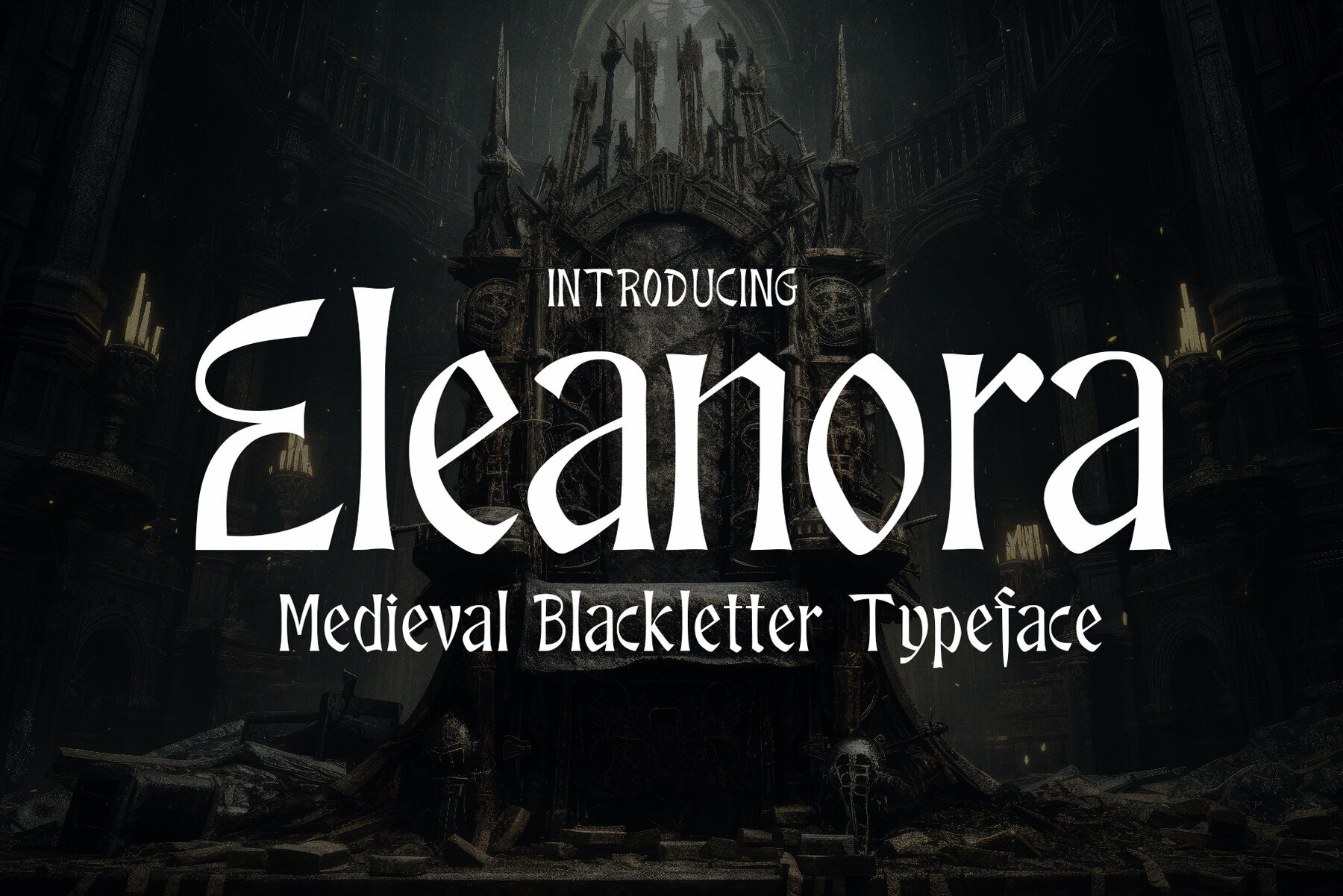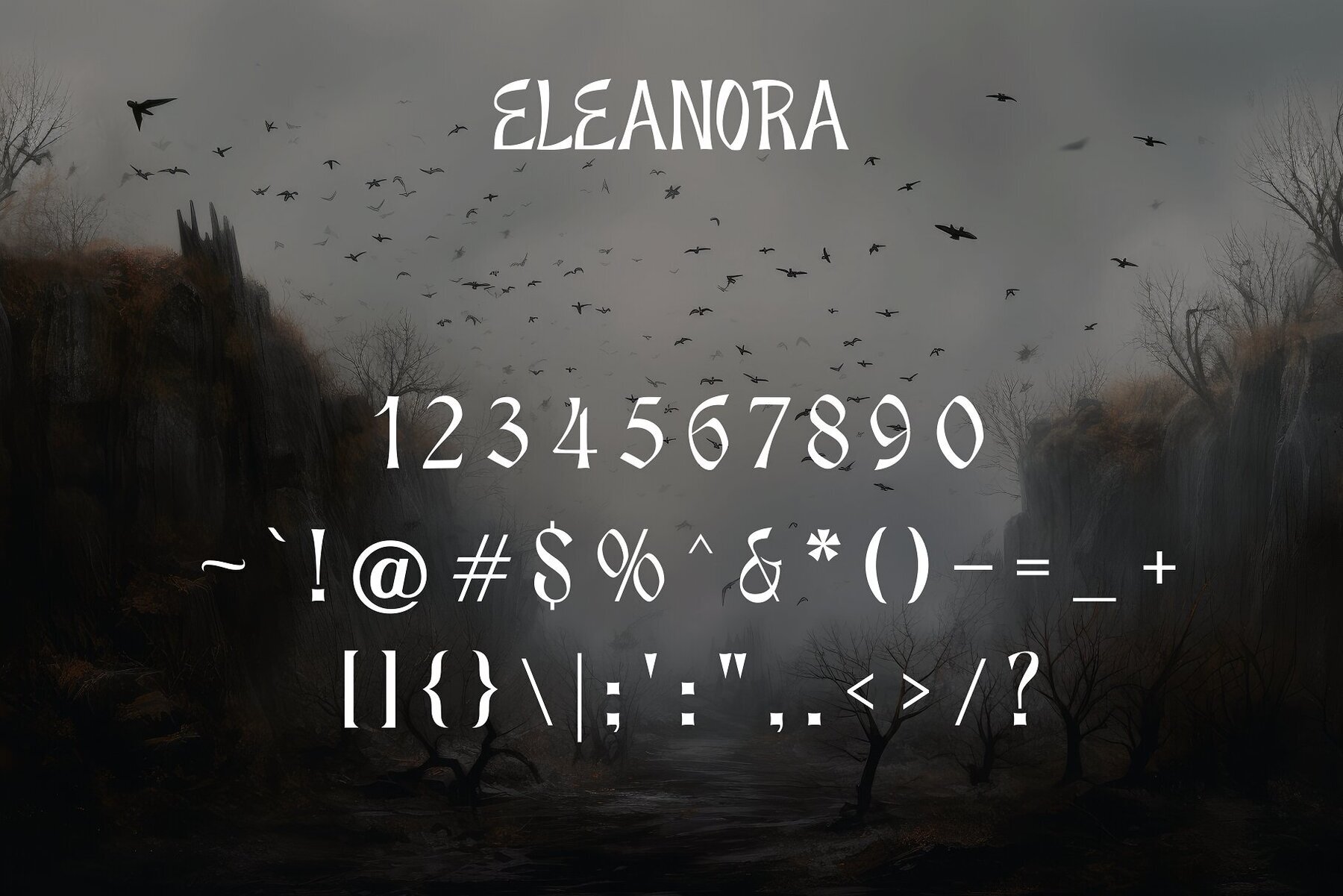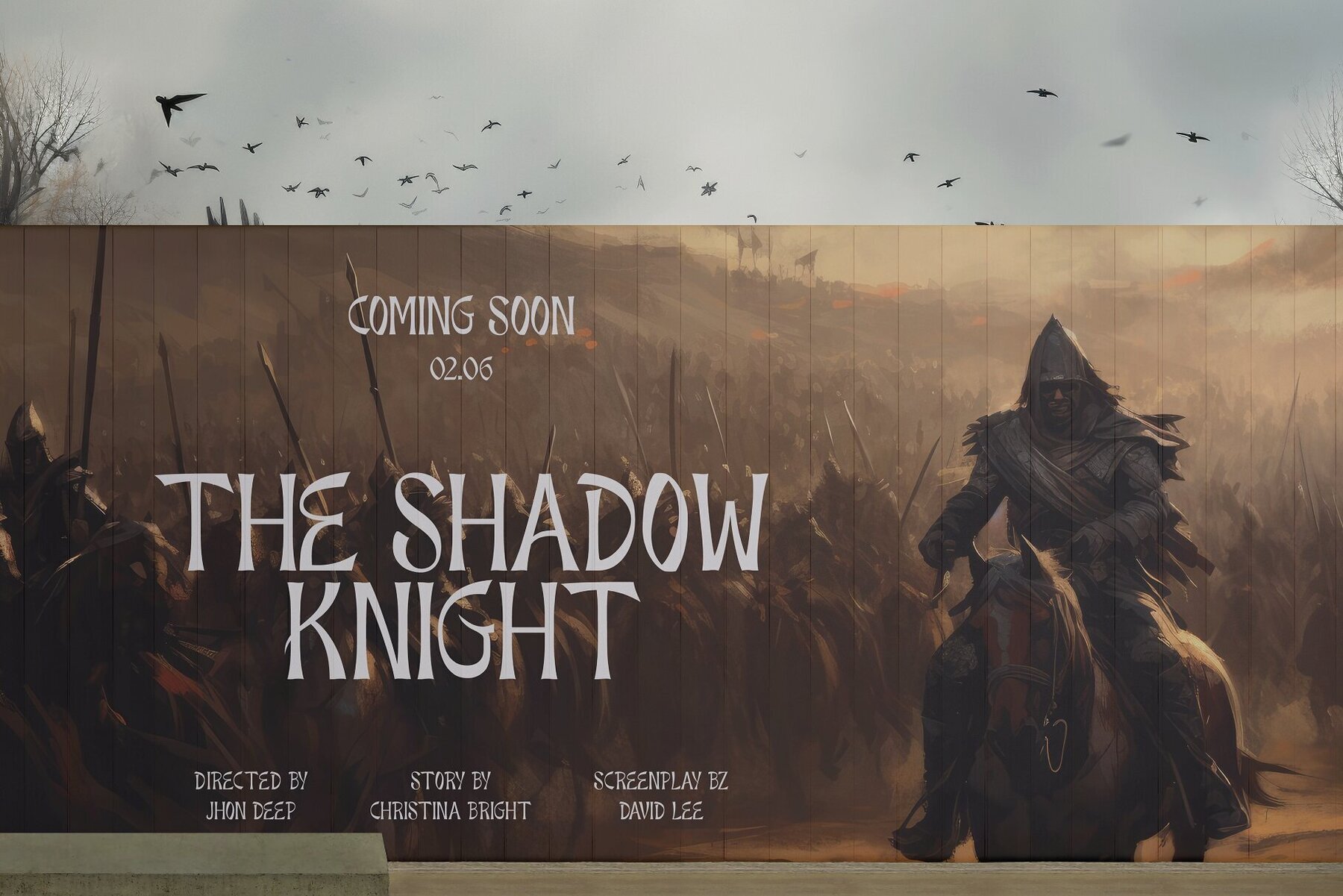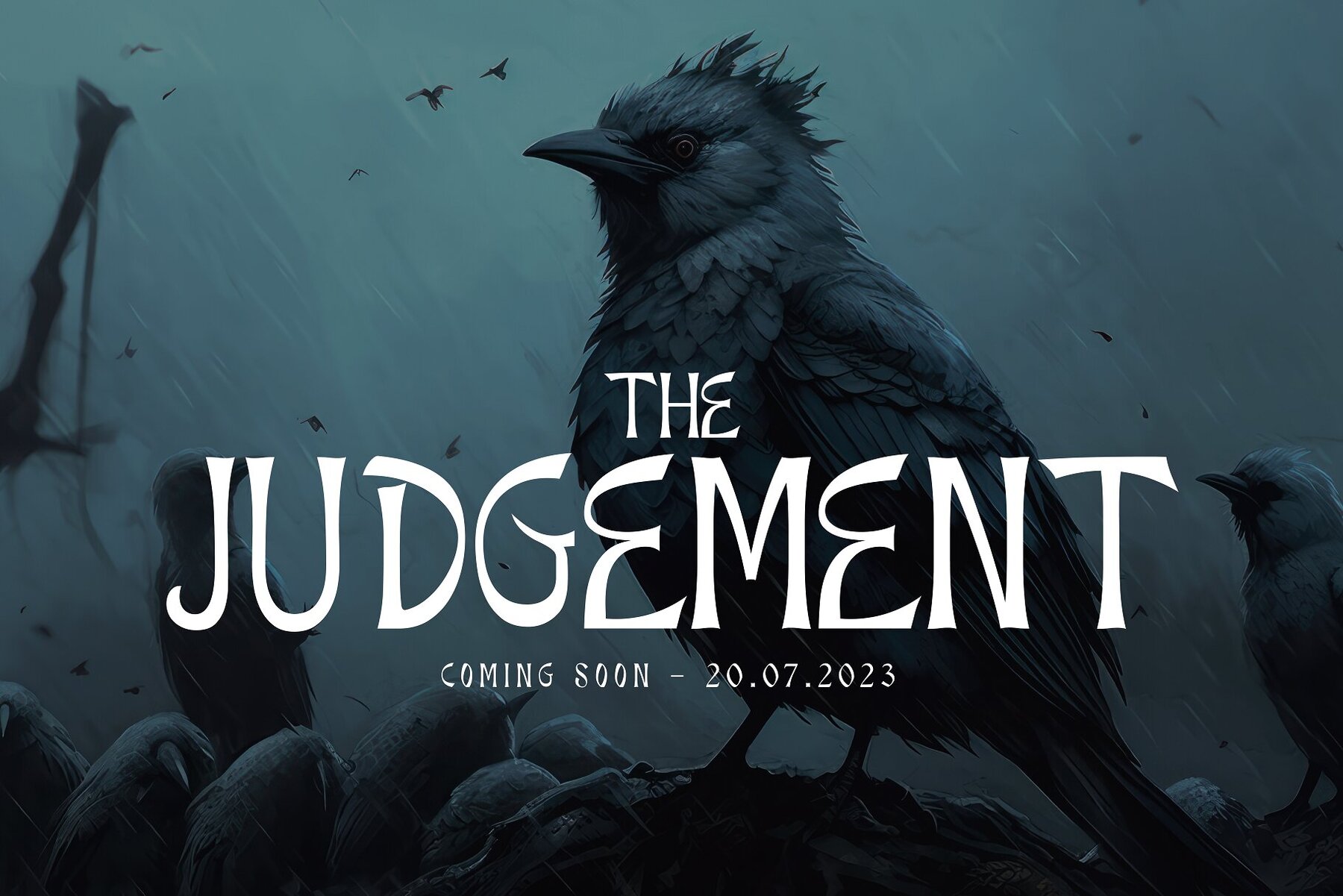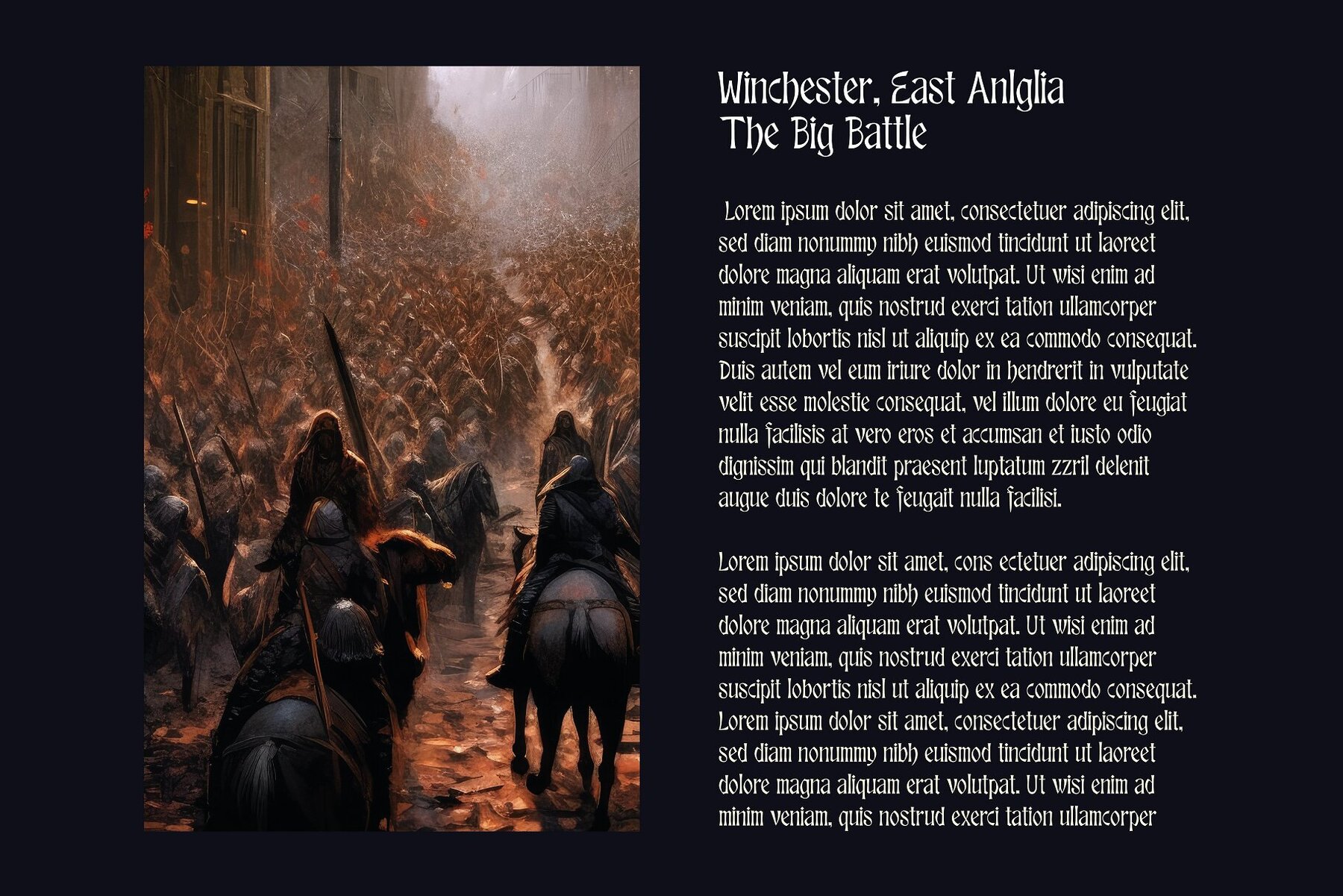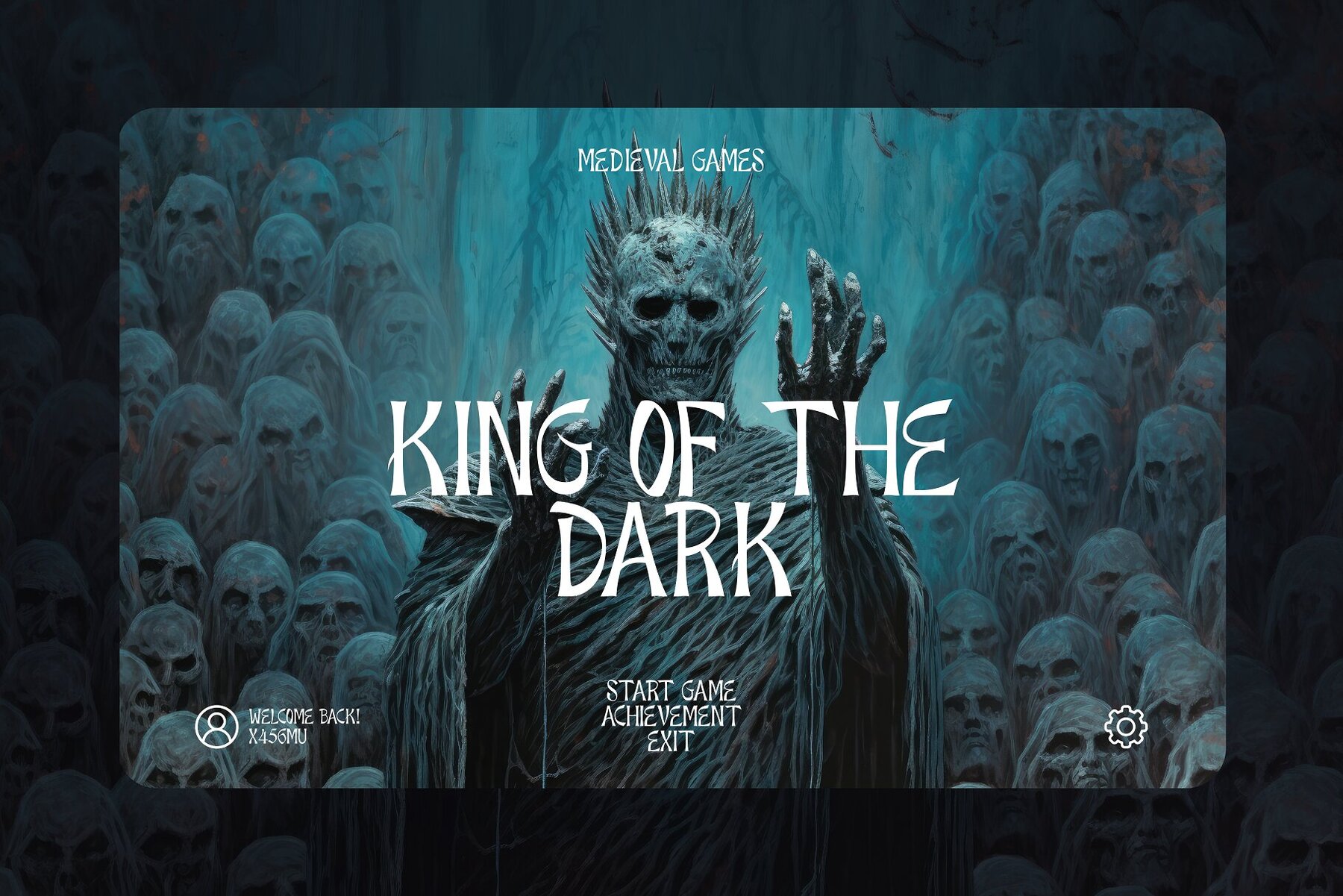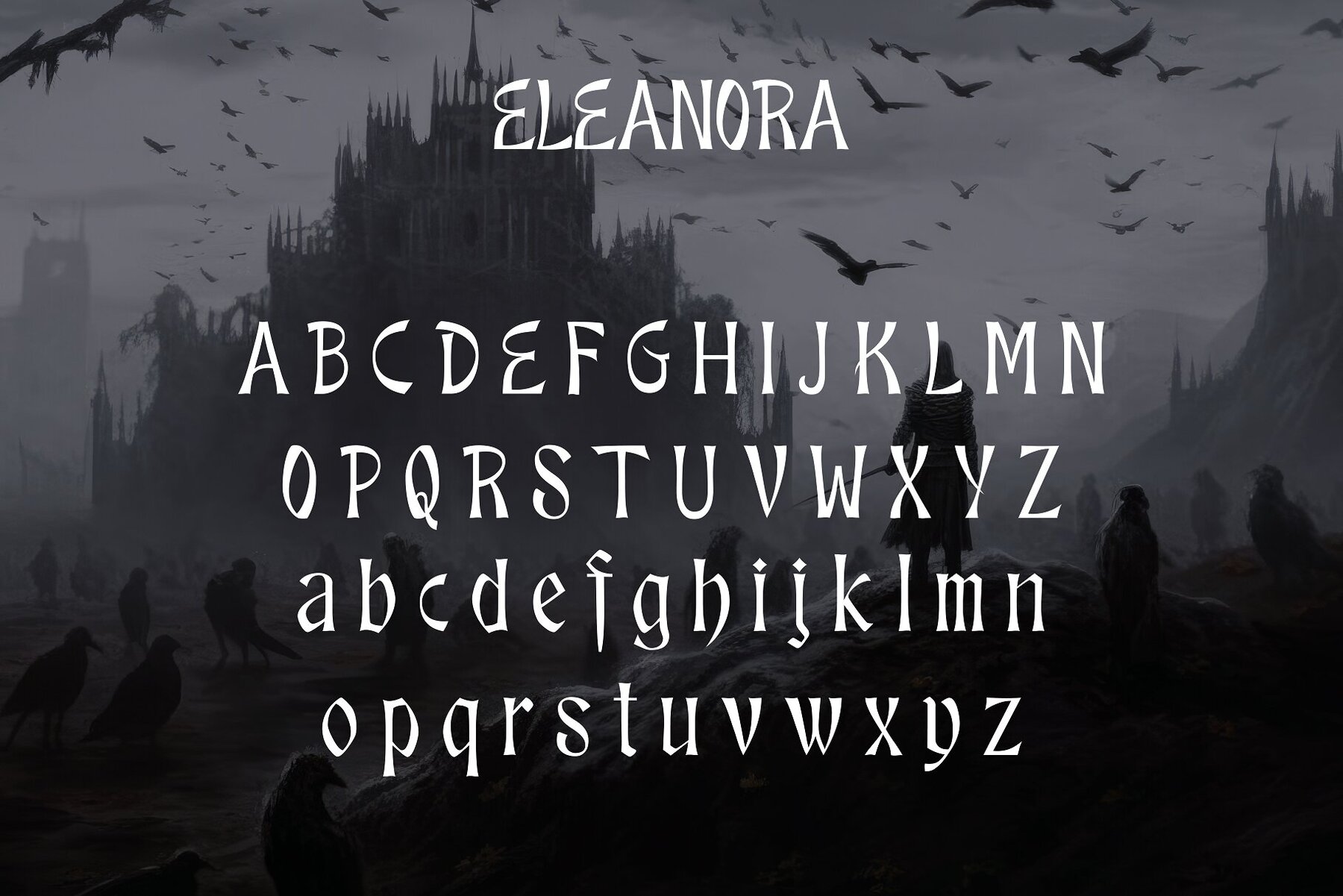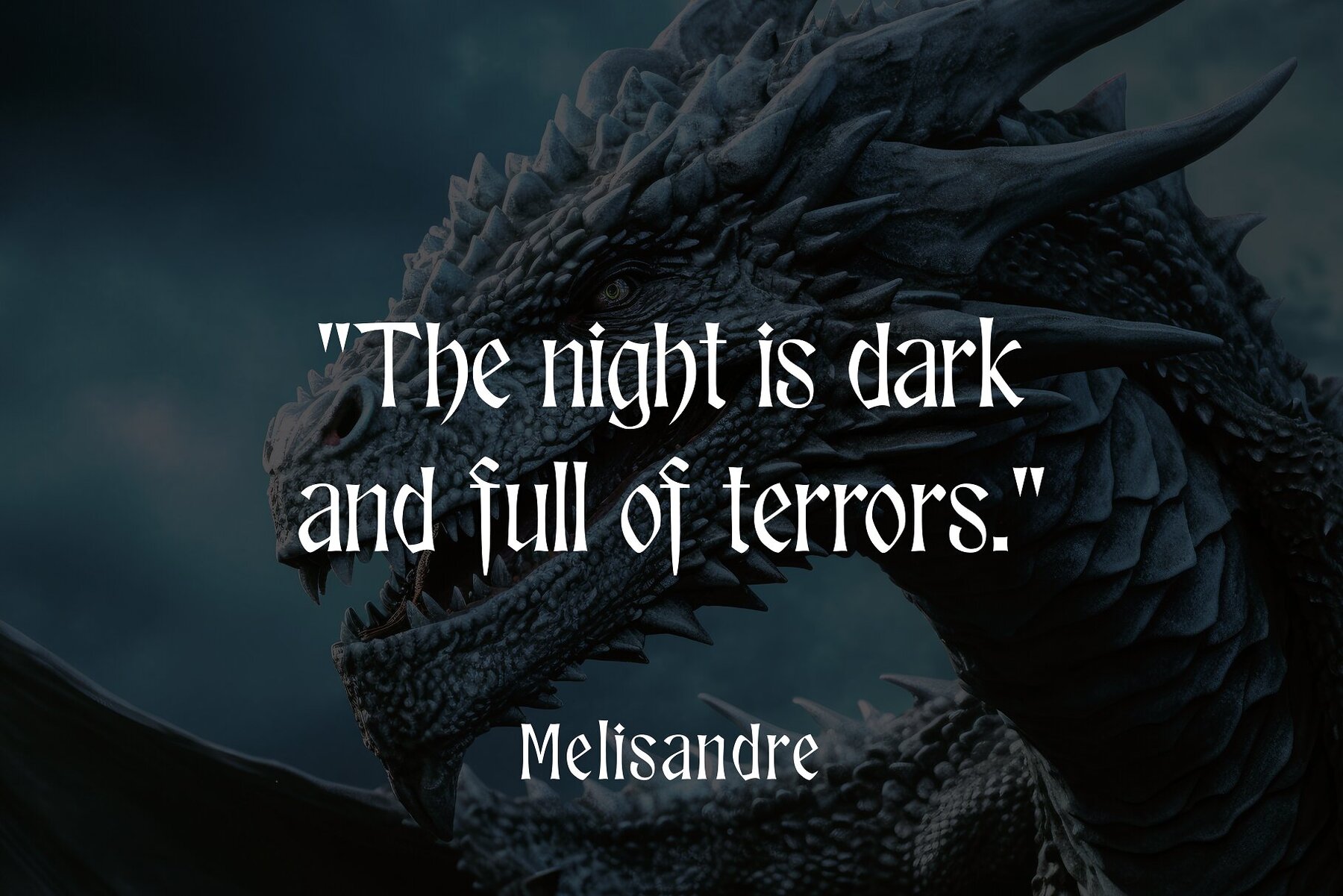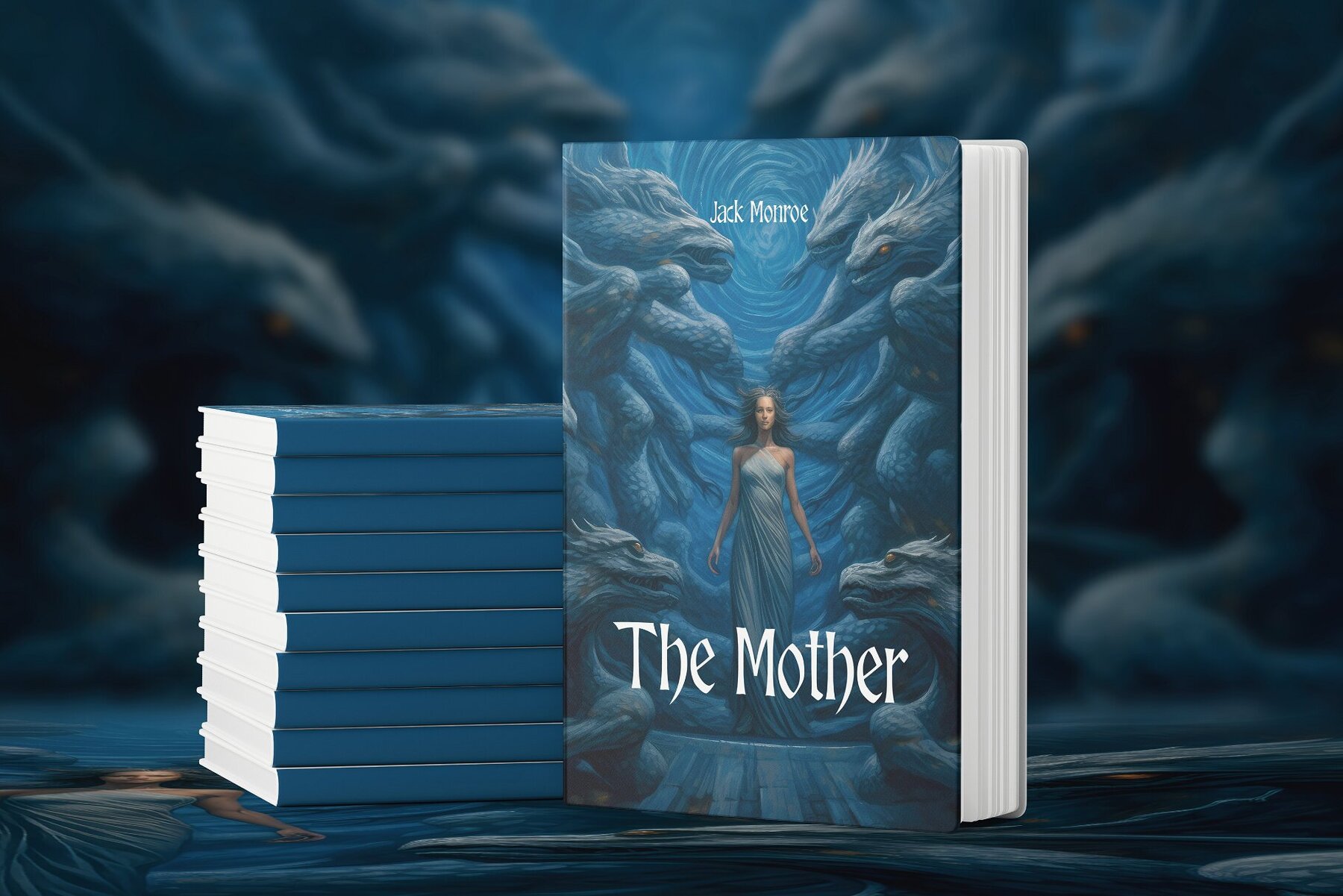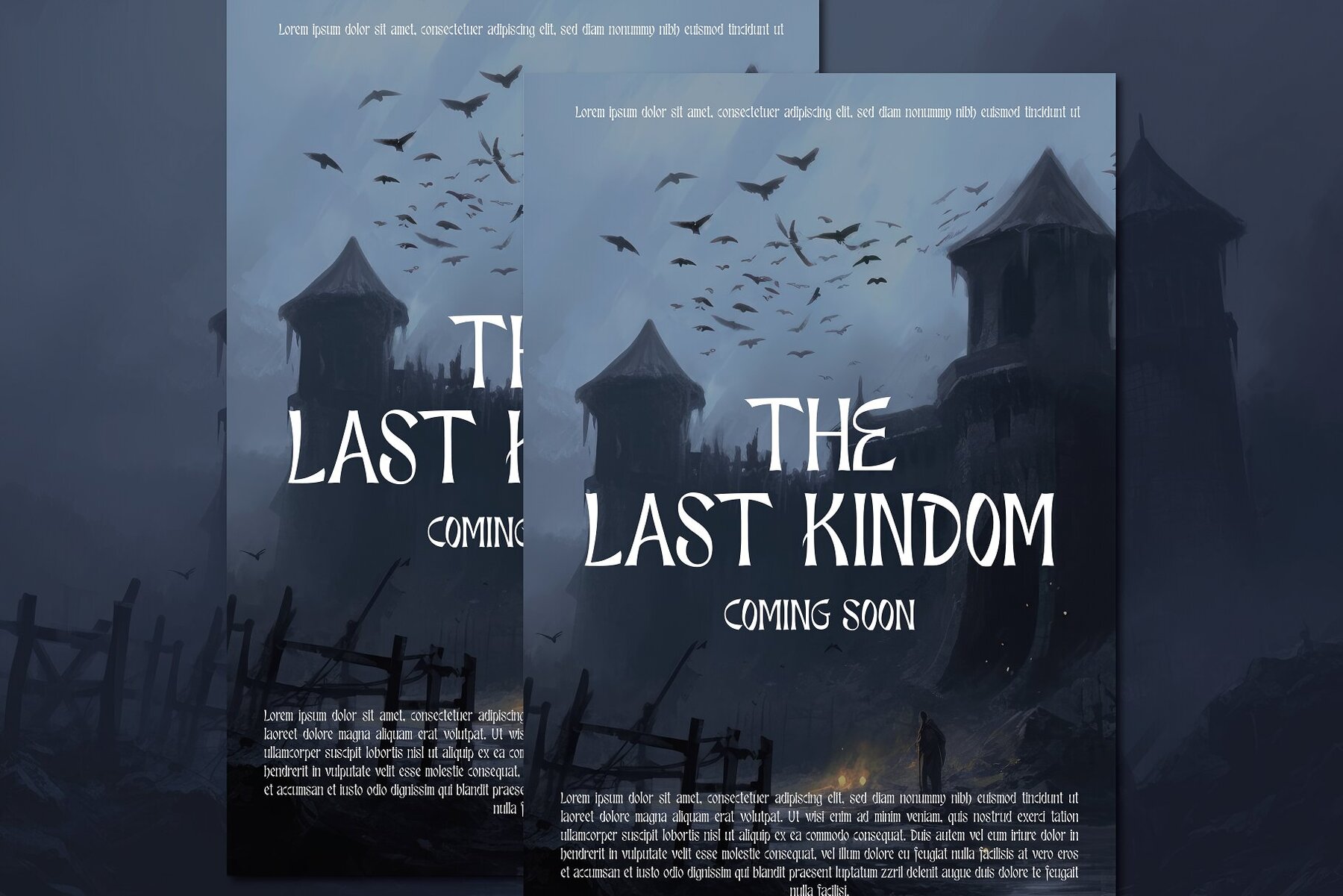
Eloanora Font
Eleanora Regular
Unlock the mystical world of medieval manuscripts with Eleanora, the font that brings the captivating beauty of blackletter to life! Prepare to be spellbound by the intricate details and timeless elegance of this extraordinary typeface. Eleanora takes you on a journey to a bygone era, where knights roamed the land and tales of chivalry were written in illuminated manuscripts. Its ornate and elaborate letterforms are a testament to the craftsmanship of the past, infusing your designs with a sense of regal grandeur. Whether you’re designing invitations for a medieval-themed event, creating fantasy book covers, or adding a touch of medieval mystique to your graphic designs, Eleanora is the key to unlocking an enchanting visual experience. Don’t settle for ordinary fonts when you can adorn your creations with the majesty of Eleanora. Immerse yourself in the medieval world and let your imagination soar with this exquisite blackletter typeface!